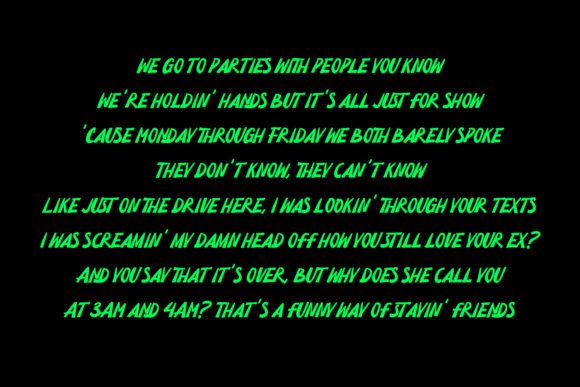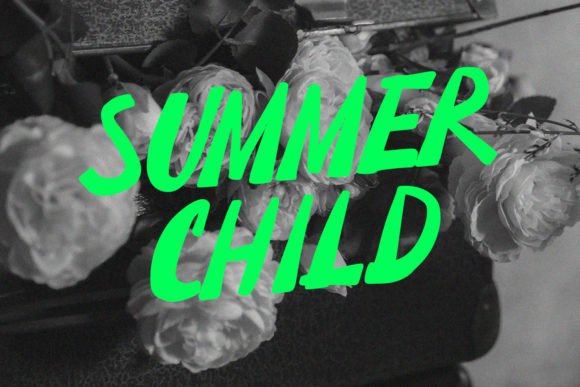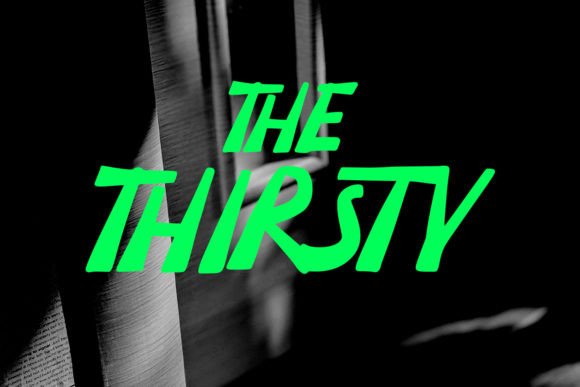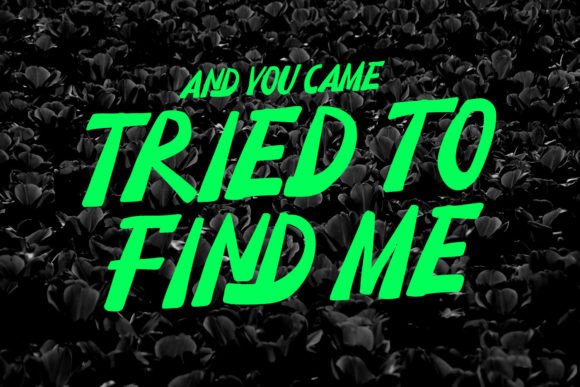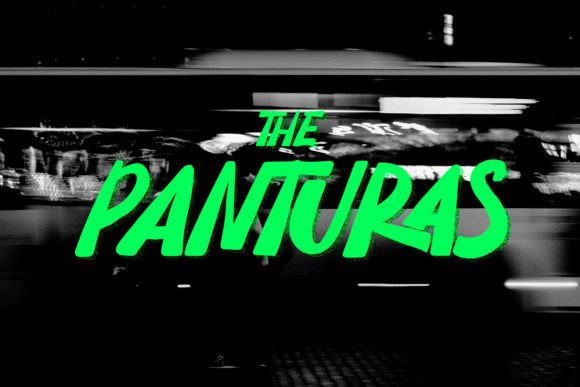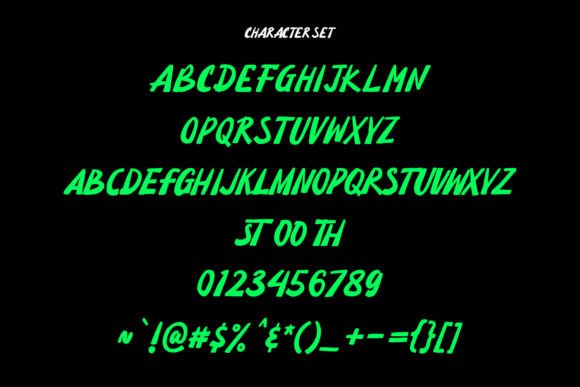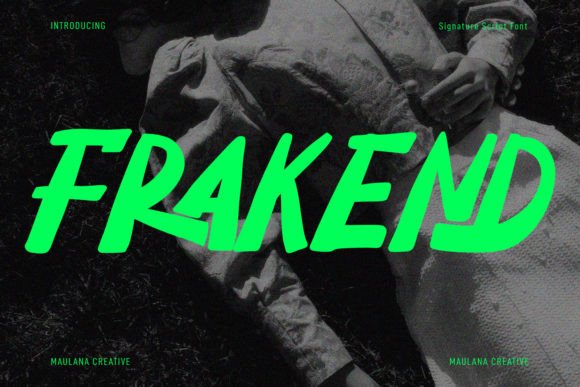
Frakend Font: Elevate Your Designs with a Cool and Casual Handwritten Display Font
Are you tired of using the same old fonts in your designs? Look no further than Frakend Font, a bold and assertive handwritten display font that’s perfect for adding a touch of personality to your crafty ideas. In this article, we’ll dive into the features and benefits of Frakend Font, and explore how you can use it to take your designs to the next level.
What is Frakend Font?
Frakend Font is a cool and casual handwritten display font that’s designed to make a statement. Its bold and assertive style makes it perfect for headlines, titles, and other display text, while its easy-to-read design ensures that your message gets across clearly. Whether you’re working on a logo, a poster, or a social media graphic, Frakend Font is a great choice.
Key Features of Frakend Font
- Bold and Assertive: Frakend Font is designed to make a statement. Its bold and assertive style ensures that your text stands out and grabs attention.
- Easy-to-Read: Despite its bold style, Frakend Font is easy to read, making it perfect for use in a wide range of applications, from headlines to body text.
- Handwritten: Frakend Font has a friendly, handwritten feel that’s perfect for adding a touch of personality to your designs.
- Versatile: Frakend Font is a versatile font that can be used in a wide range of applications, from logos and posters to social media graphics and more.
Benefits of Using Frakend Font
- Adds Personality: Frakend Font adds a touch of personality to your designs, making them stand out from the crowd.
- Improves Readability: Despite its bold style, Frakend Font is easy to read, making it perfect for use in a wide range of applications.
- Increases Engagement: The friendly, handwritten feel of Frakend Font makes it perfect for use in designs that need to engage and connect with the audience.
- Versatile: Frakend Font can be used in a wide range of applications, from logos and posters to social media graphics and more.
- Logos: Use Frakend Font to create a bold and assertive logo that makes a statement.
- Posters: Add Frakend Font to your posters to create eye-catching headlines and titles.
- Social Media Graphics: Use Frakend Font to add a touch of personality to your social media graphics and make them stand out.
- Signage: Frakend Font is perfect for use in signage, from store signs to event signs.
- Experiment with Colors: Frakend Font looks great in a wide range of colors, so don’t be afraid to experiment and find the perfect color for your design.
- Play with Sizes: Frakend Font can be used in a wide range of sizes, from small body text to large headlines.
- Combine with Other Fonts: Frakend Font pairs well with a wide range of other fonts, so don’t be afraid to experiment and find the perfect combination for your design.
In conclusion, Frakend Font is a cool and casual handwritten display font that’s perfect for adding a touch of personality to your designs. Its bold and assertive style makes it perfect for headlines and titles, while its easy-to-read design ensures that your message gets across clearly. Whether you’re a designer, crafter, or DIY enthusiast, Frakend Font is a great choice for your next project.